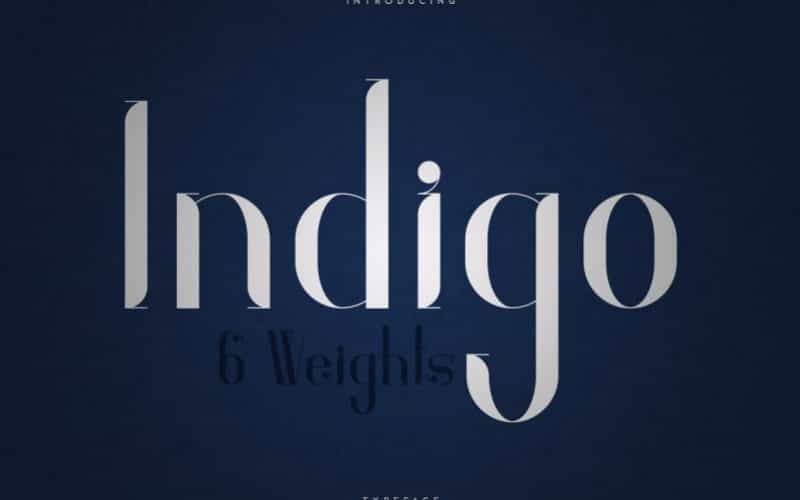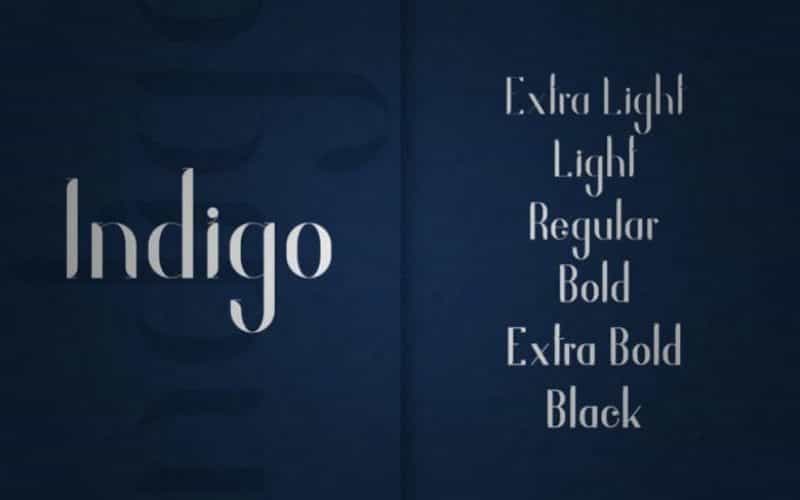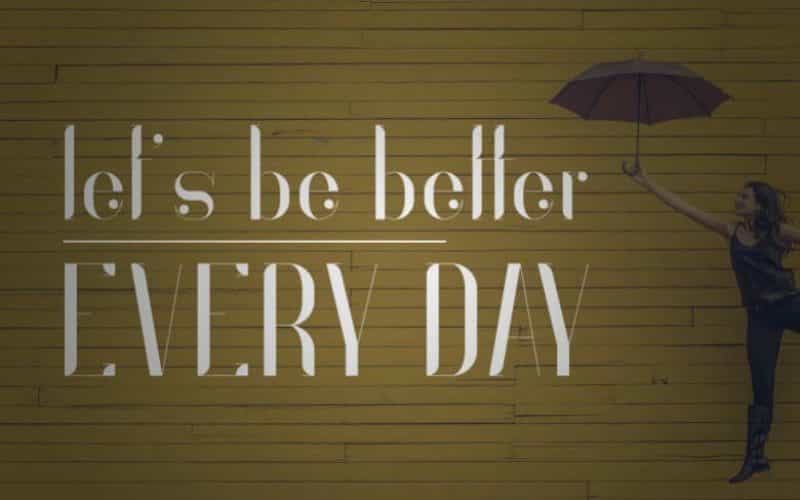
Indigo is an elegant, clean typeface that has 6 weights and it is also multilingual. It is a very flexible font that suits for both big and small prints.